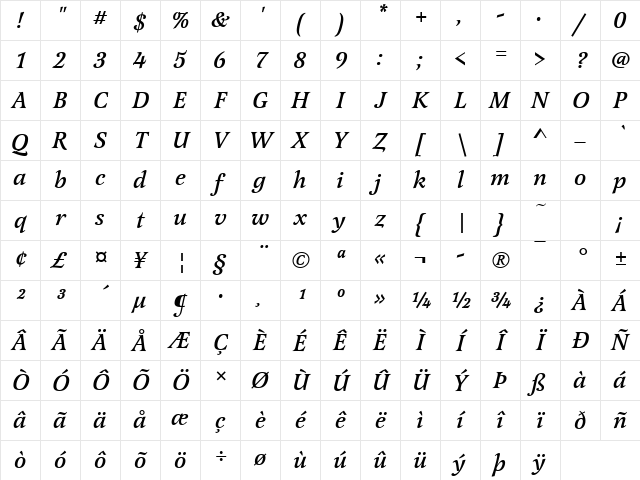
LatienneTMed Italic
LatienneTMed Family
LatienneTMed Italic
LatienneTMed Italic Font Preview
LatienneTMed Italic Uppercase Preview
LatienneTMed Italic Lowercase Preview
LatienneTMed Italic Numeric Preview
LatienneTMed Italic Character Map
Complete LatienneTMed Italic glyph index. Displaying only characters natively supported by LatienneTMed Italic font.
LatienneTMed Italic Character Map
Design Context for LatienneTMed
LatienneTMed is a composed and adaptable typeface that performs quietly and consistently across a wide range of design contexts. The slanted form adds forward momentum and visual energy.